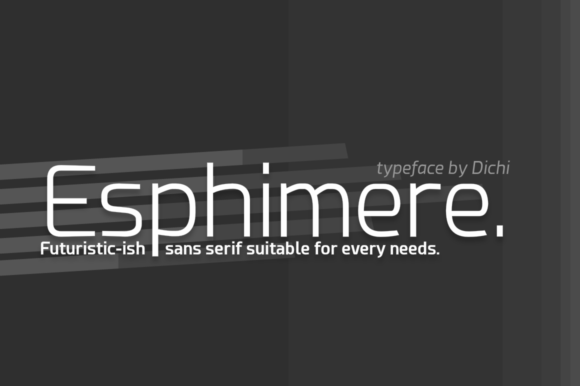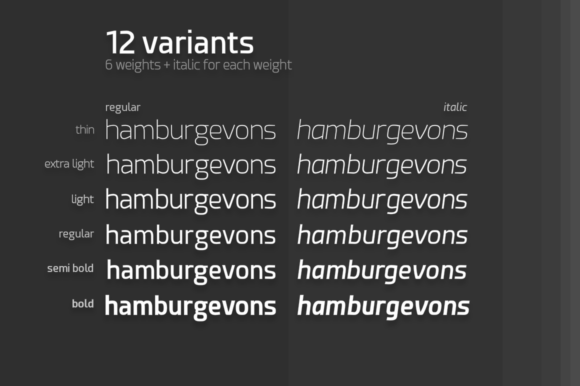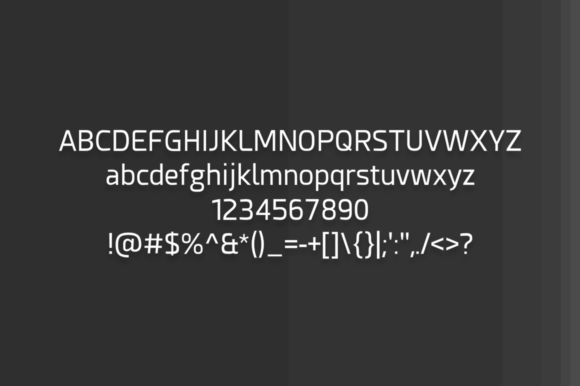
The Future of Typography: Introducing the Esphimere Font
Imagine you’re working on a sci-fi project, and you’re struggling to find the perfect font to transport your audience to another galaxy. You’ve tried countless options, but nothing seems to capture the essence of a futuristic world. That’s where the Esphimere Font comes in – a Sans Serif typeface that’s out of this world.
This versatile font is designed to take your projects to new heights, whether you’re creating a futuristic video game, a cyberpunk novel, or a futuristic website. The Esphimere Font is the perfect tool for designers who want to add a touch of futurism to their work, and its clean lines and modern aesthetic make it a valuable addition to any design toolkit.
Esphimere Font Key Features
- Font Family: Esphimere Font is a sans-serif font family.
- Unique Characteristics: Features a unique blend of modern and minimalist design elements, making it suitable for various design projects, including logos, branding, and digital interfaces.
- Character Set: Includes a comprehensive character set, covering multiple languages and special characters, ensuring versatility in design applications.
Designer Review: Esphimere Font
Overall, I was quite impressed with the Esphimere Font. It has a unique and modern feel to it, making it perfect for designers who want to add a touch of sophistication to their projects. ✨ The font’s clean lines and rounded edges make it highly versatile and suitable for a wide range of applications, from headings to body text.
One of the standout features of the Esphimere Font is its excellent legibility. Even at small font sizes, the text remains clear and easy to read. Additionally, the font’s wide character set ensures that it can handle a variety of languages and scripts with ease. ✨
- ⚠️ The font may not be ideal for use in extremely small font sizes or for very long blocks of text, as it can start to lose its clarity.
- ⚠️ Some users may find the font’s rounded edges too playful or juvenile for certain applications.
Overall, I would highly recommend the Esphimere Font to designers looking for a modern and versatile font. While it may have some limitations, its unique design and excellent legibility make it a great addition to any design project. ✨
Getting the Most Out of Esphimere Font
To get the most out of Esphimere Font, use it for:
- Creative projects that require a unique and elegant touch.
- Branding and logo design where a distinctive font is required.
- Typography-heavy projects where the font can be the main focus.
Esphimere Font is commonly used for:
- Luxury branding and packaging design.
- High-end typography projects.
Alternatives to Esphimere Font for Designers
Playfair Display is a luxurious, high-end serif font ideal for creating elegant and sophisticated designs. It is perfect for use in branding, advertising, and editorial content where a touch of refinement is needed. Compared to Esphimere Font, Playfair Display has a more dramatic and ornate feel, making it better suited for formal or luxury brands.
Great Vibes is a modern, elegant script font perfect for creating a sense of style and sophistication. It is ideal for use in wedding invitations, packaging, and other designs where a touch of whimsy and romance is needed. Compared to Esphimere Font, Great Vibes has a more fluid and expressive feel, making it better suited for designs that require a sense of movement and energy.
3. Ostrich Sans
Ostrich Sans is a modern sans-serif font with a geometric feel. It is perfect for use in corporate branding, digital design, and other applications where a clean and modern look is needed. Compared to Esphimere Font, Ostrich Sans has a more minimalist and utilitarian feel, making it better suited for designs that require a sense of simplicity and clarity.